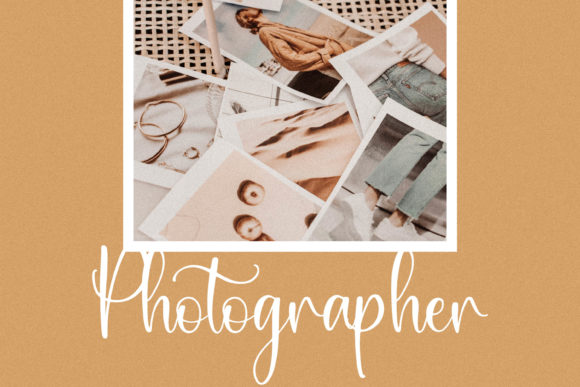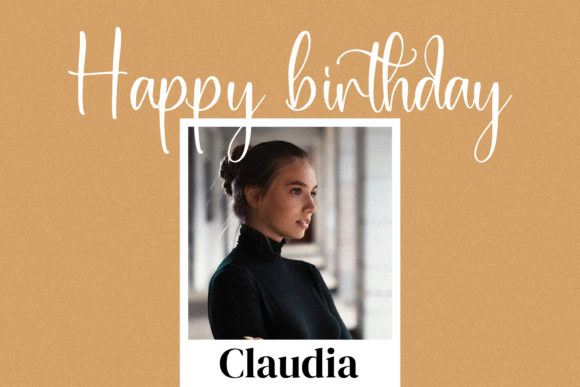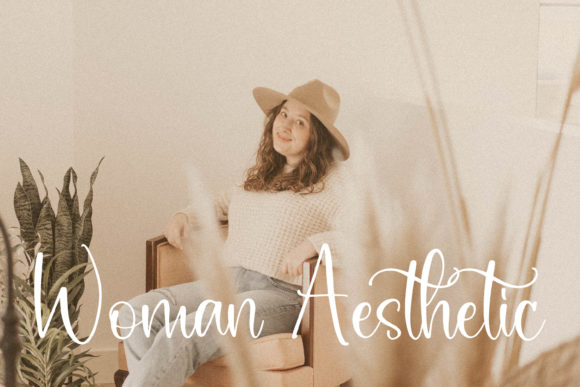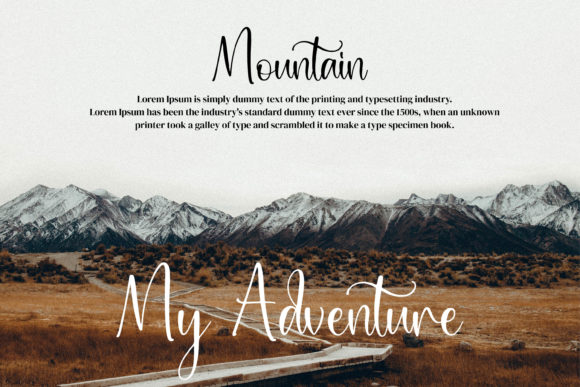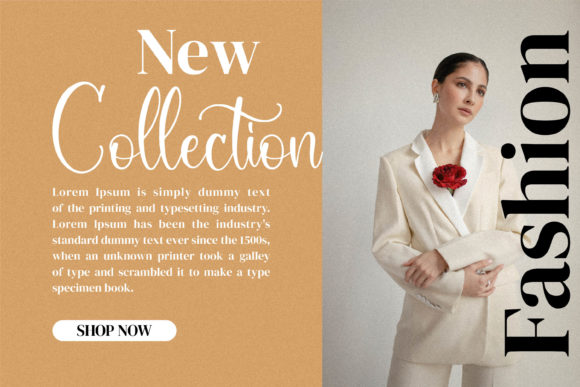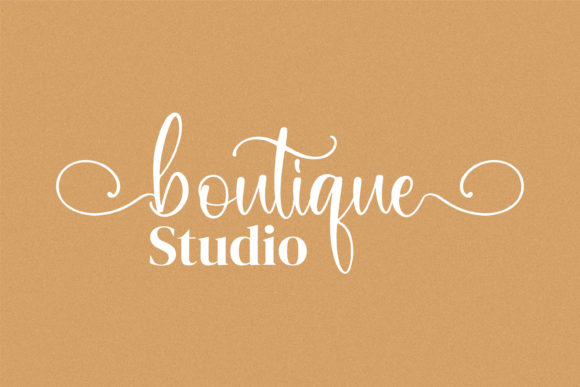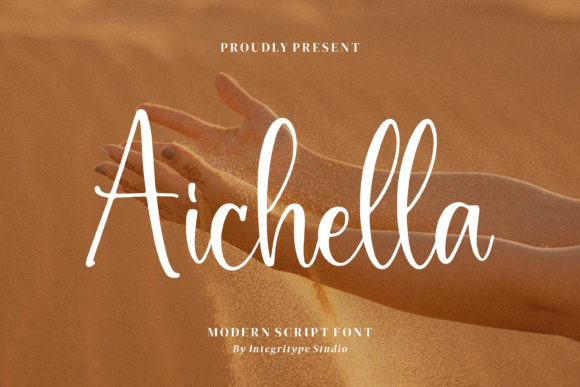
The Aichella Font: Elevate Your Designs with Luxury and Elegance
Have you ever been in the middle of a design project, and suddenly, you’re stuck on finding the perfect font? I recall a particularly frustrating experience while working on a branding project for a high-end client. The project required a font that exuded luxury, sophistication, and elegance. After hours of scouring the internet, I stumbled upon the Aichella font, which became the game-changer for my project. In this article, I’ll share my experience with Aichella, its features, and how to make the most of this premium script font.
What Makes Aichella Special?
Aichella is a premium script font designed for creative professionals and hobbyists who want to add a touch of luxury to their projects. Its versatility makes it suitable for various applications, including:
• Logos and branding projects
• Homeware designs and product packaging
• Mugs, quotes, posters, and shopping bags
• T-shirts, book covers, name cards, and invitation cards
• Greeting cards, labels, photography, and watermarks
• Special events and other luxury projects
An Honest Review of Aichella
What I Love About Aichella
Here’s what makes Aichella stand out:
• ✨ Elegant and sophisticated design
• 💫 Highly versatile and suitable for various projects
• 🔥 Perfect for adding a luxurious touch to designs
While Aichella is an excellent font, there are a few things to keep in mind:
• ⚠️ May require some time to get familiar with the OpenType features and glyphs
• 🤔 Limited availability of certain characters or swashes in some applications
The Story Behind Aichella
Aichella was designed by a team of skilled typographers who aimed to create a font that embodies luxury, elegance, and sophistication. The font’s design inspiration comes from classic calligraphy and modern script fonts, making it a unique and versatile addition to any design project.
Q: What is PUA encoding, and how does it benefit Aichella?
A: PUA (Private Use Area) encoding allows for easy access to glyphs and swashes, making it simpler to use Aichella’s OpenType features.